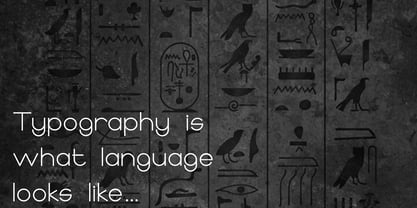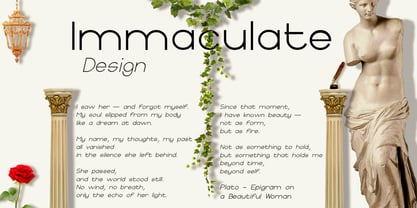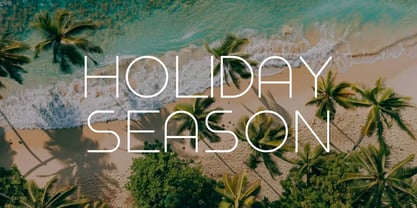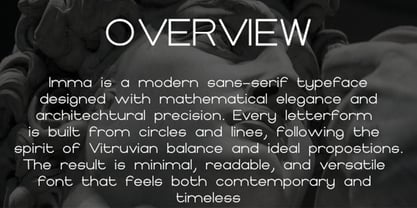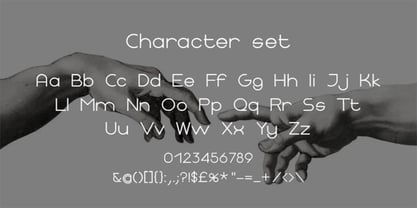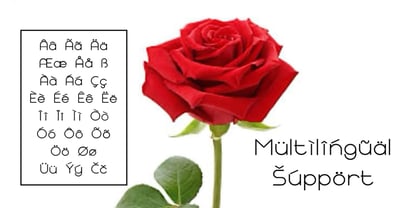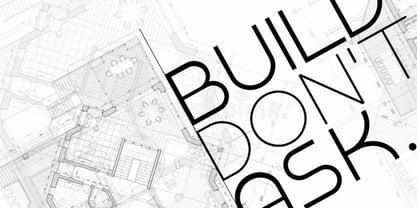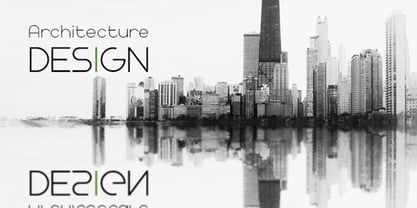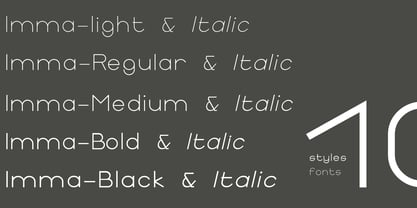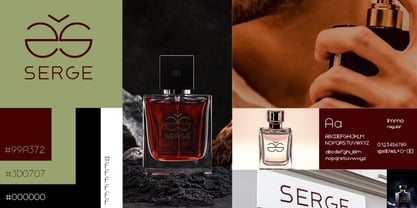
Imma
by Awoume Type
The Imma Font Family was designed by Beni Atcho and published by Awoume Type. Imma contains 10 styles and family package options. More about this family
Imma is a contemporary geometric sans-serif typeface built on the principles of circles, straight lines, and pure proportions. Designed with precision and clarity, it offers a distinctive balance between mathematical rigor and humanist elegance. With ten versatile styles ranging from Light to Black, including matching italics, Imma adapts seamlessly across branding, editorial design, digital interfaces, and cultural projects. Its refined curves and signature letterforms, such as the iconic lowercase 's', make it stand out while ensuring legibility and consistency at every size. Imma is crafted for designers seeking a modern yet timeless tool to elevate their visual identity with sophistication and strength.
Imma